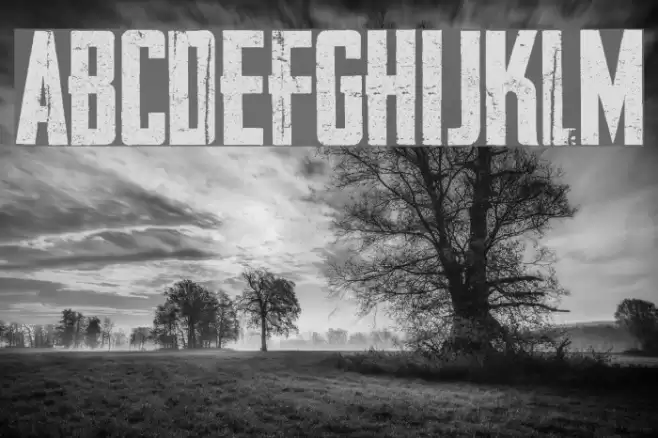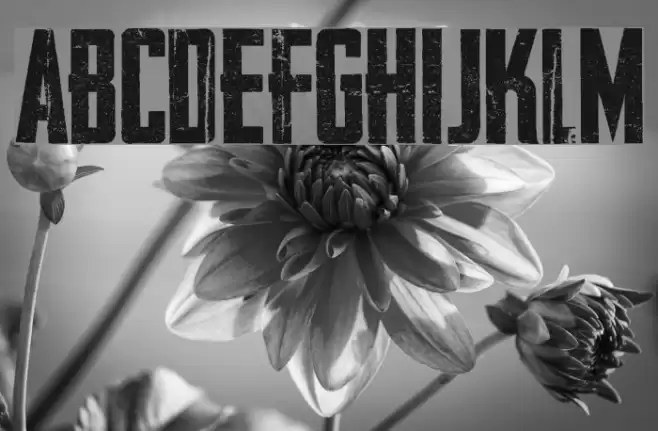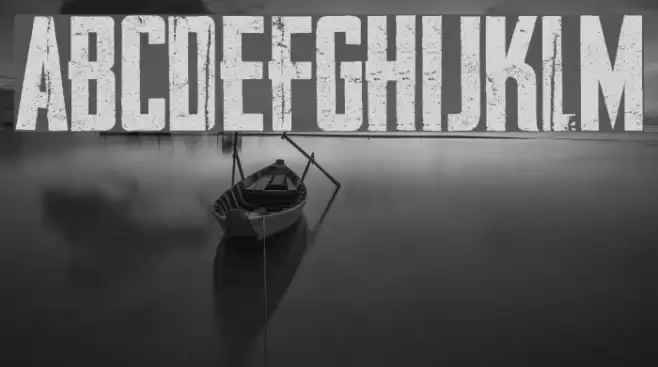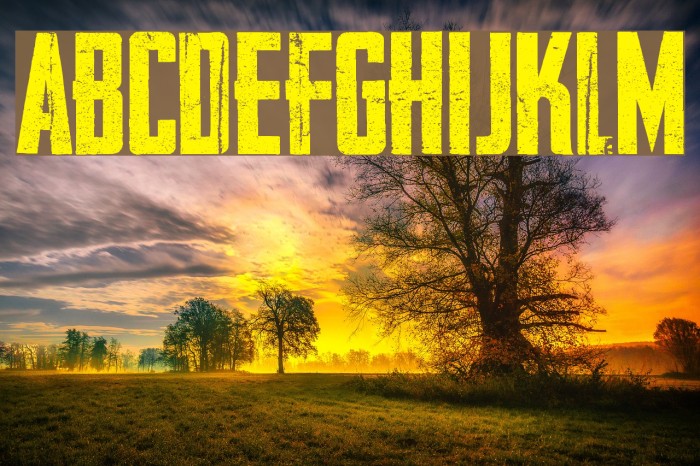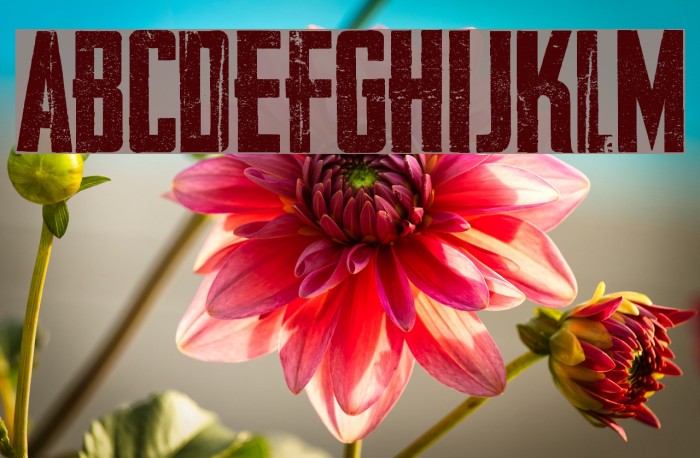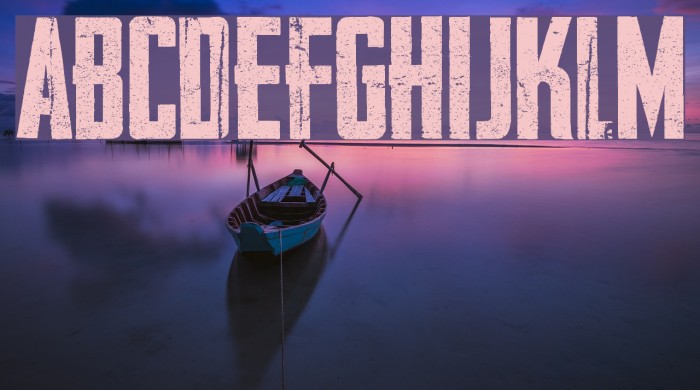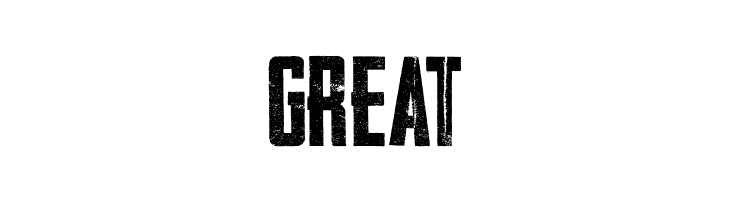
AWAKENNING Personal Use Font
AWAKENNING Personal Use Description
This font features a bold, distressed style with a rugged texture that gives it a vintage and worn appearance. The uppercase letters are prominent and impactful, making it ideal for attention-grabbing designs. The texture adds a unique character, suggesting a sense of history or a grunge aesthetic. The font maintains a consistent weight throughout, with each letter exhibiting a slightly rough edge, enhancing its raw and authentic feel. The spacing between characters is relatively tight, contributing to a compact and cohesive look. This font is well-suited for projects that require a strong, bold statement with a touch of nostalgia or edginess.
A bold, distressed font with a vintage, rugged texture from Uncategorized fonts.
- Proposed Projects: Ideal for posters, album covers, branding materials, and any design seeking a bold, vintage aesthetic.
- Character Spacing: Tight
- Overall Style: Vintage